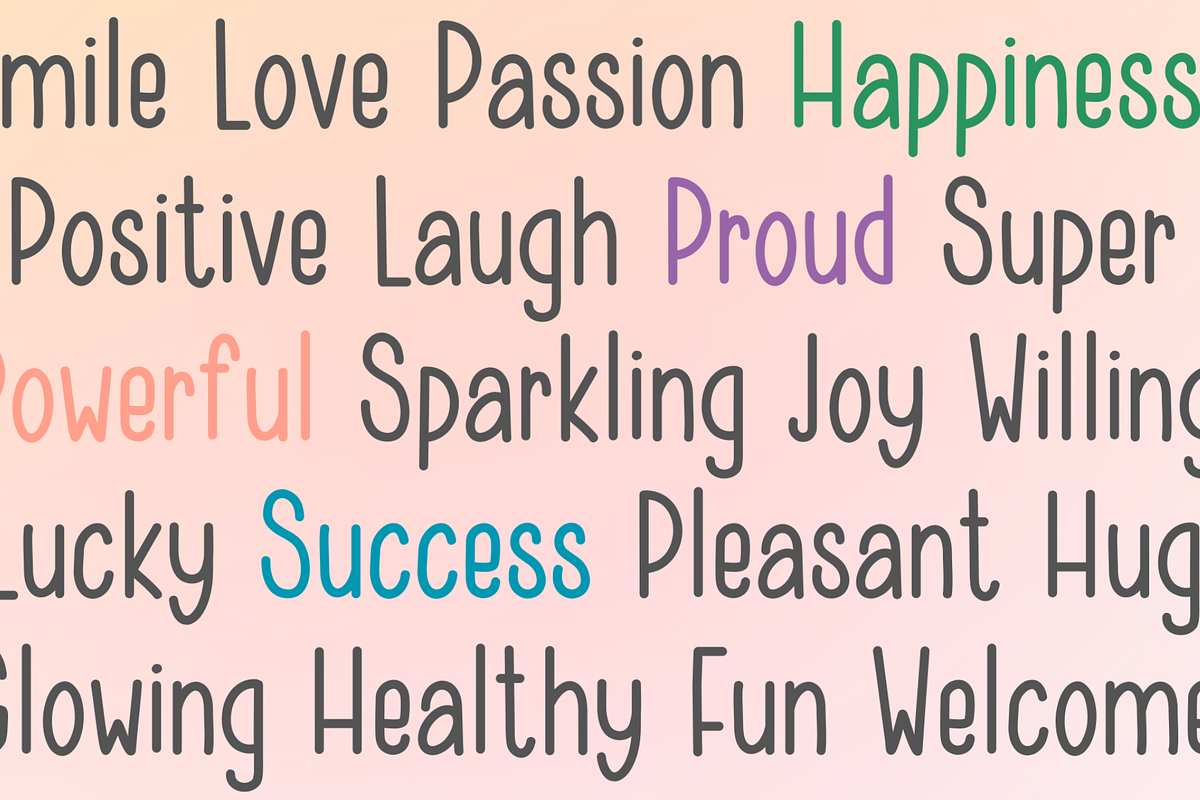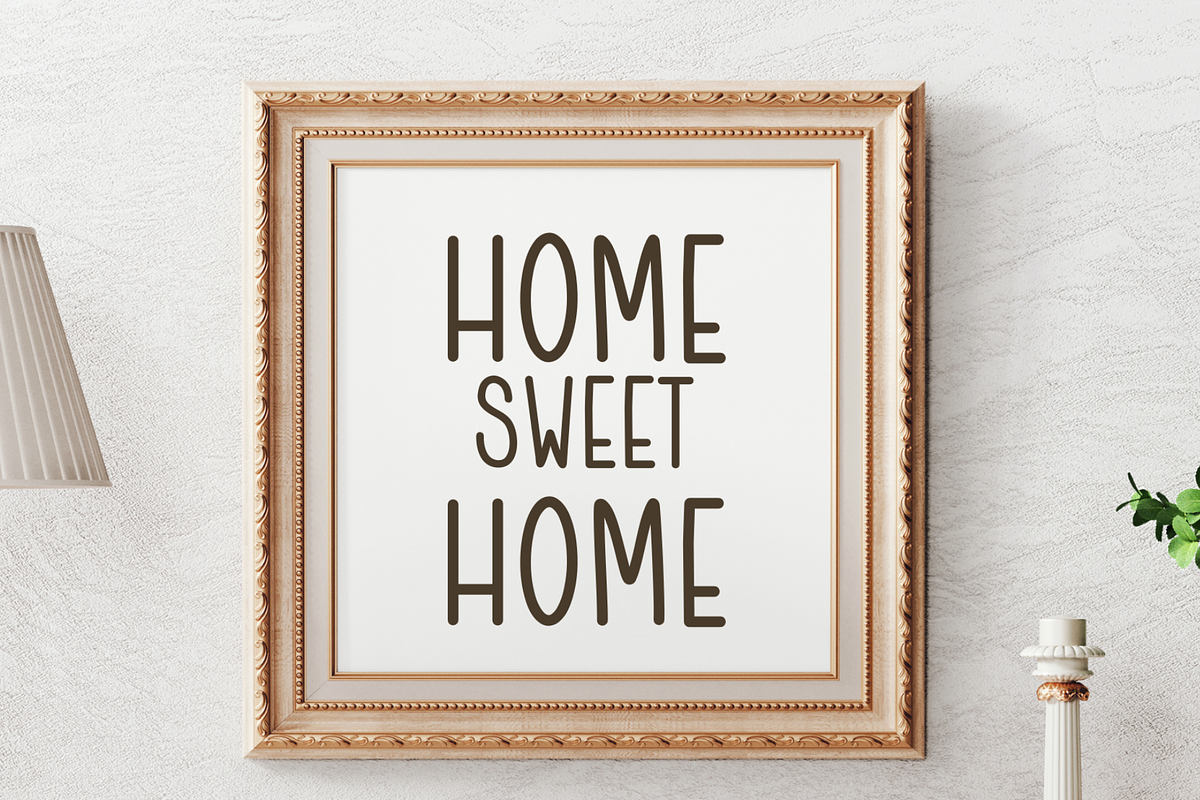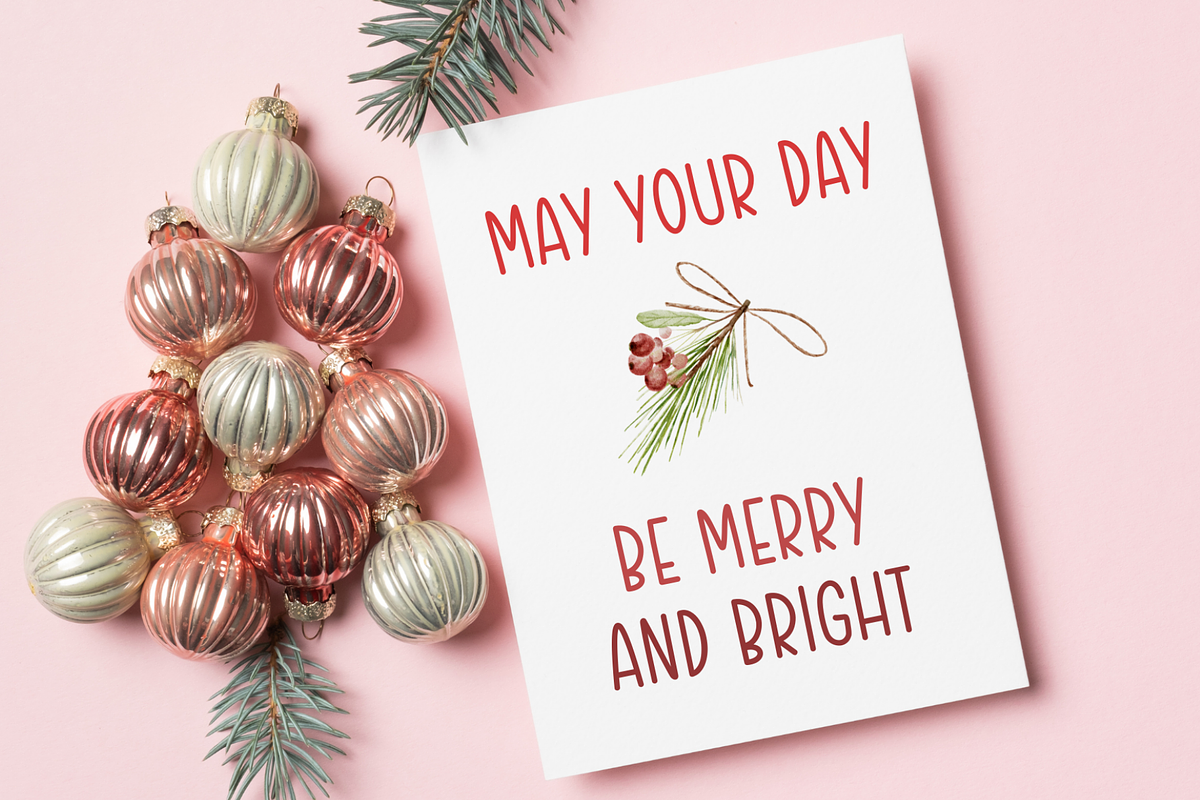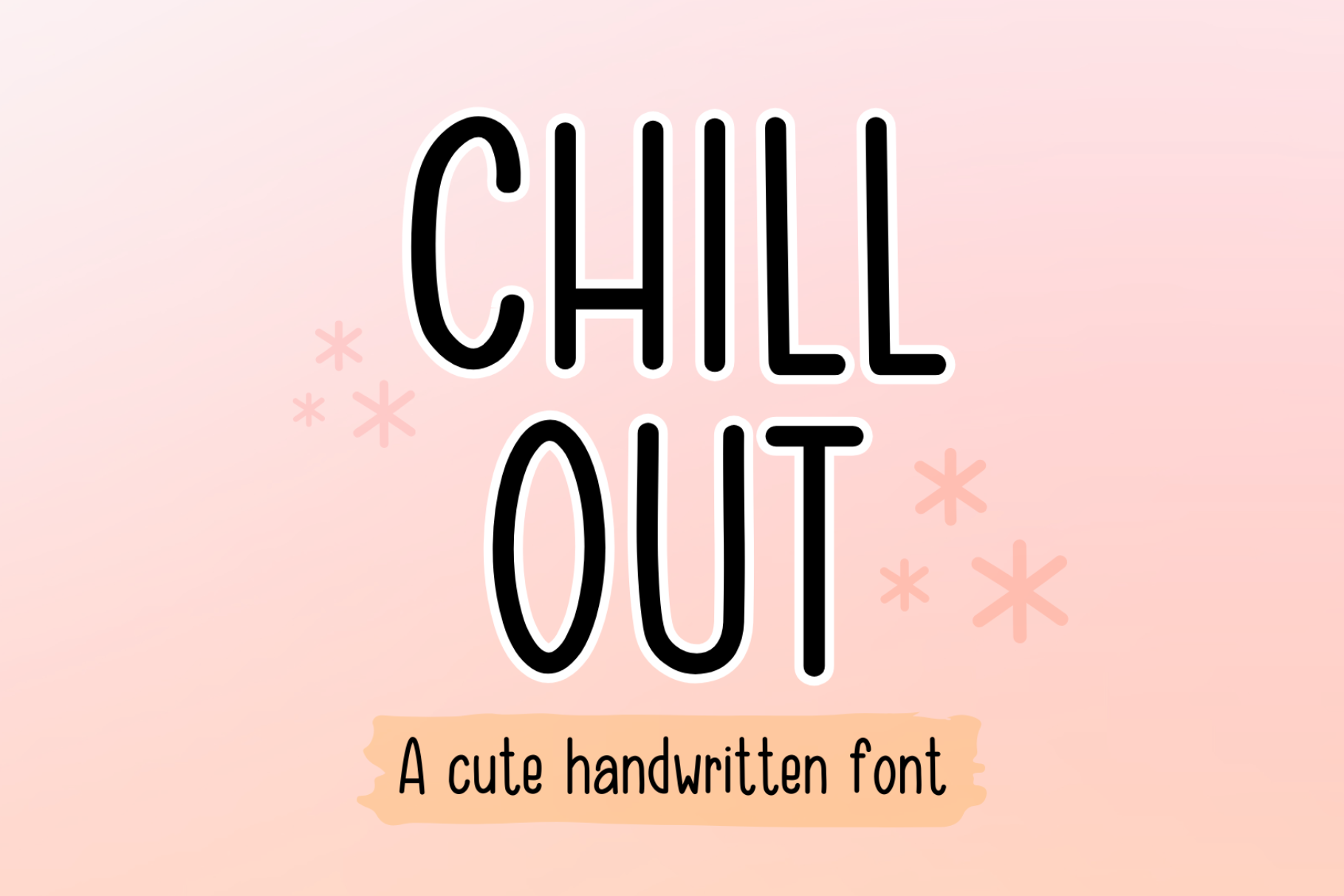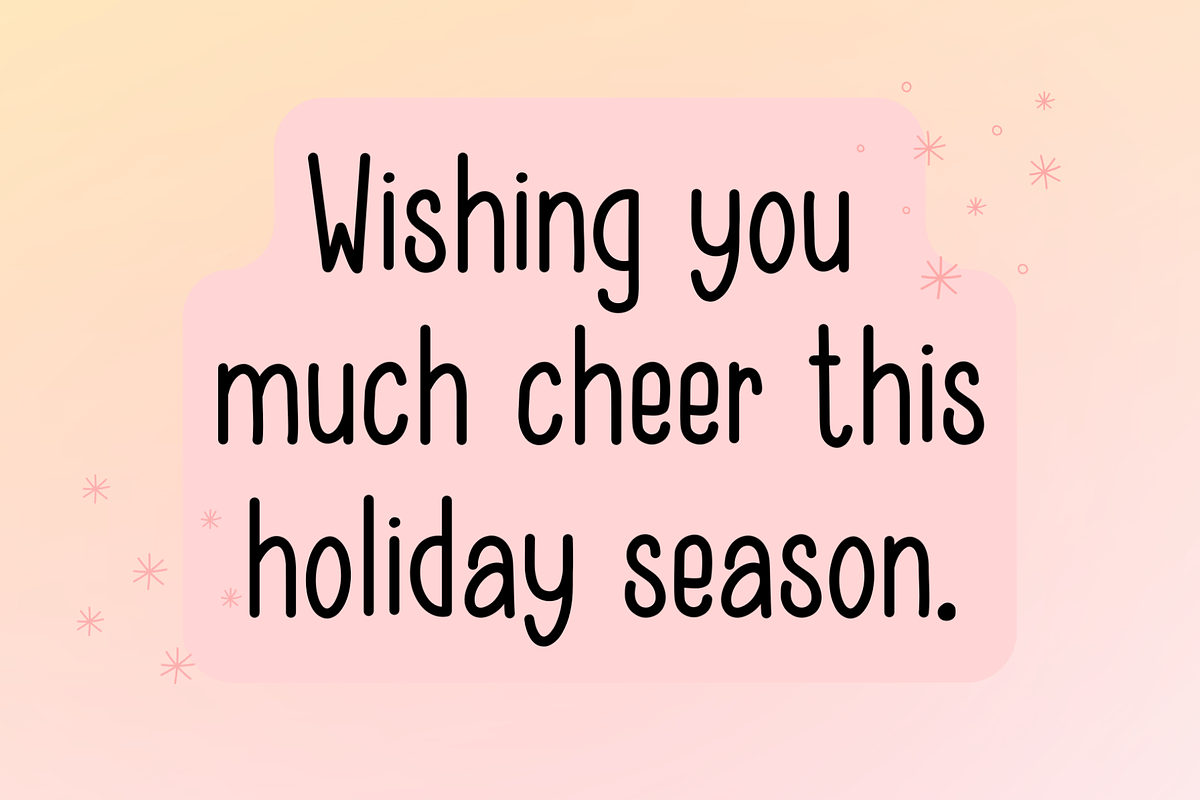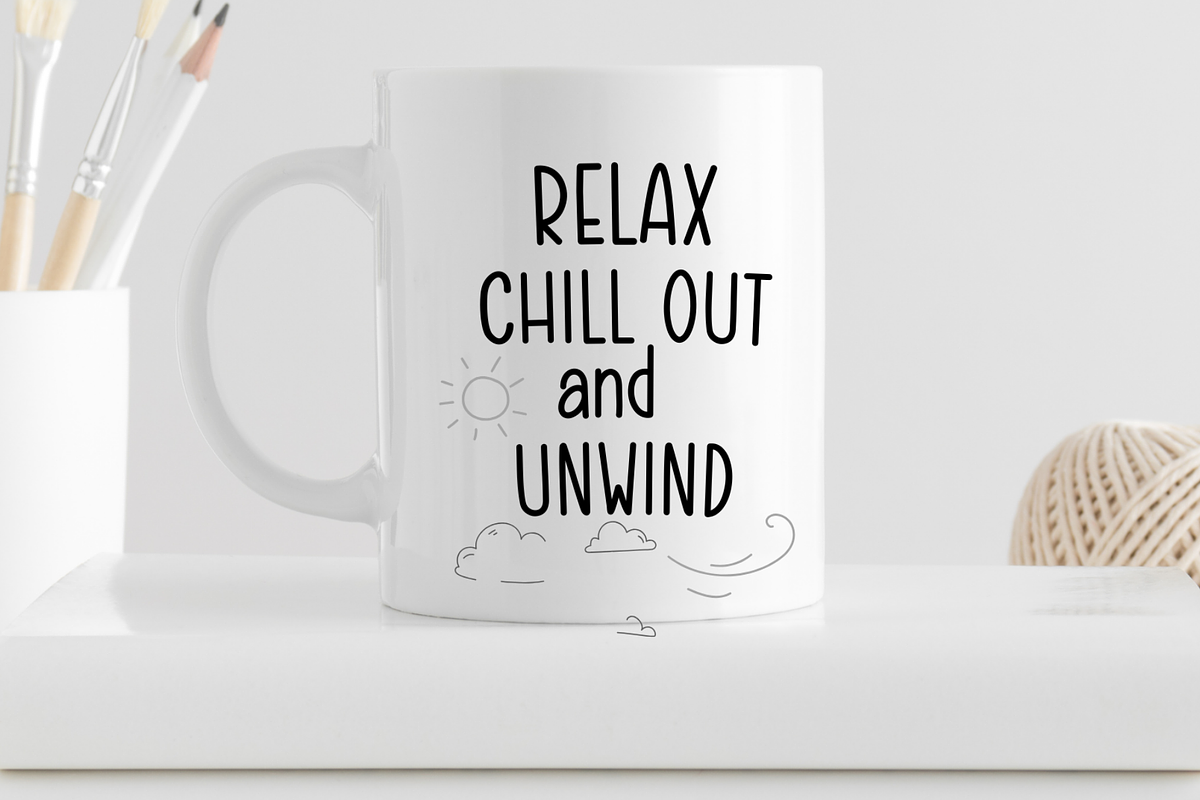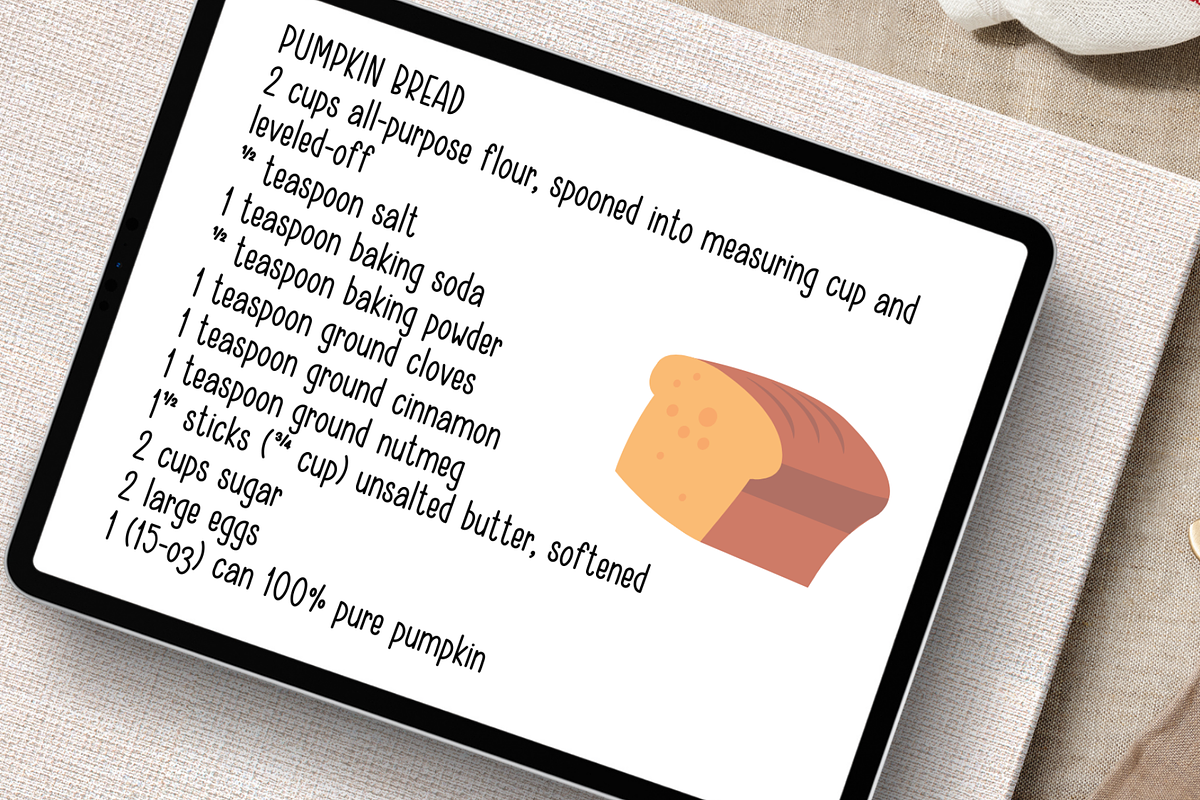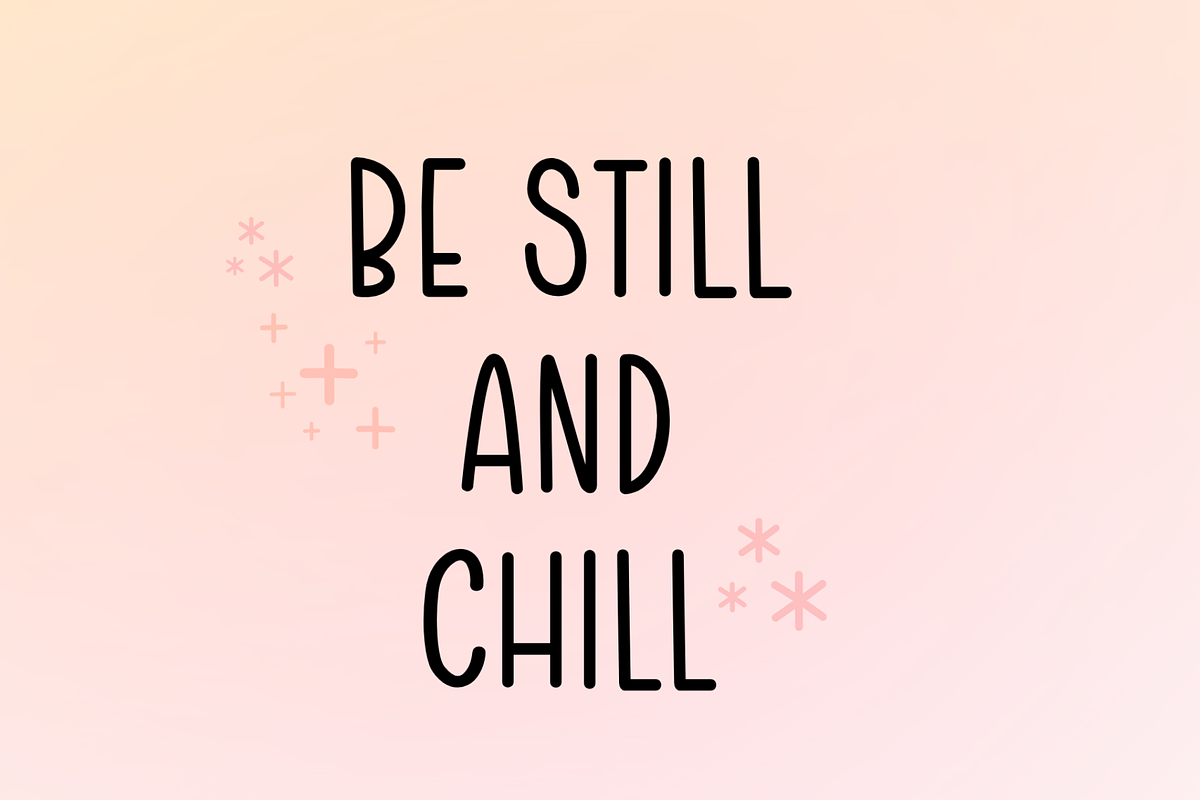
Chill Out Cute Handwritten Font
Chill Out is a handwritten font that is cute , playful , neat and clean. It is good for digital prints, Greetings Cards, quotes for facebook and Instagram, Goodnote, planner, journal and any occasion presentations.